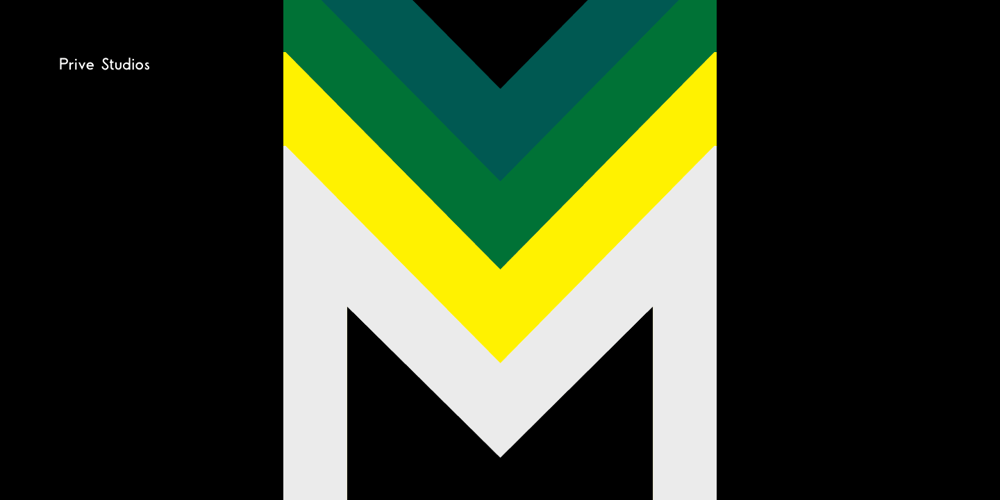
Muguet
Muguet font
Muguet Font Family was designed by Max Prive and published by Max Prive. Muguet contains 1 styles and family package options. MUGUET is a reinvention of the Skin typeface designed by Max Prive in 2016. MUGUET features reimagined capital letters and improved kerning. It’s ultra clean, ultra minimalist with a hint of retro aesthetics.